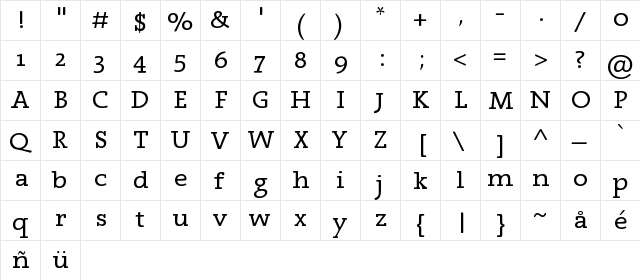
AstaSlabMediumB1 Regular
AstaSlabMediumB1 features prominent, blocky serifs that give it a confident, grounded presence — equally at home in editorial settings and bold branding work.
Suited to magazines, political campaign materials, bold packaging, and any setting where authority matters.
Pro Tip: Use AstaSlabMediumB1 for headlines and subheadings where its slab serifs can make an impression. It also holds up well in mid-size body copy thanks to its sturdy construction.